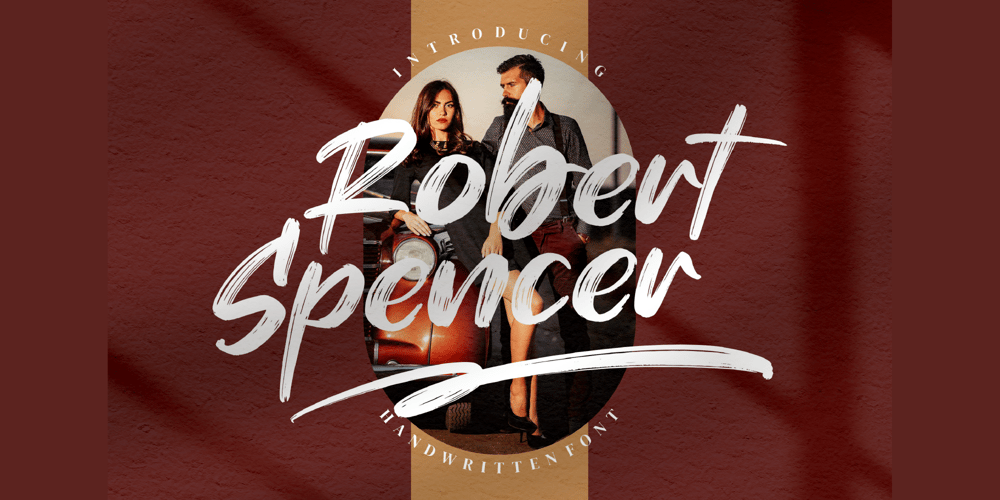
Robert Spancer
Robert Spancer font
Robert Spancer Font Family was designed by Dimas Alif Maulana and published by Integritype. Robert Spancer contains 2 styles and family package options. Robert Spencer is a lovely brushed handwritten font. It looks beautiful on a variety of designs requiring a personalized style, such as wedding invitations, thank you cards, weddings, greeting cards, logos and so on.